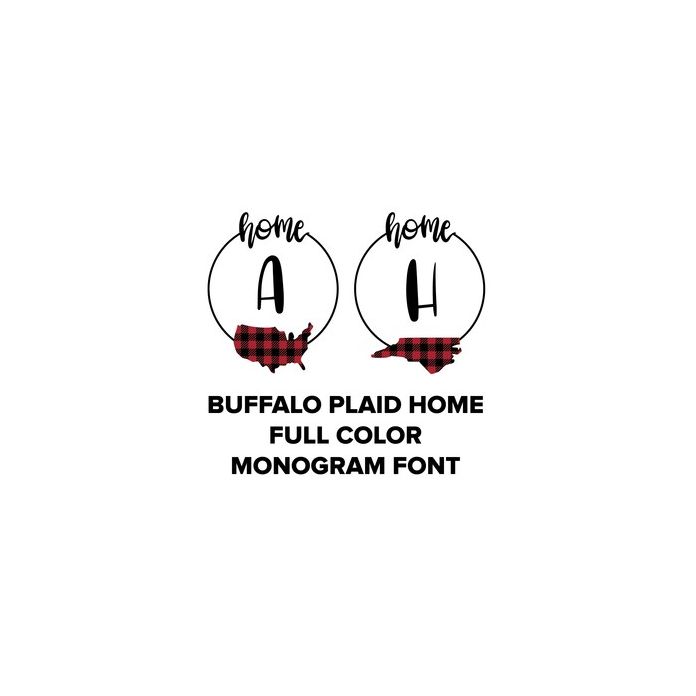
This font comes with all 50 states as well as the United States shape. Only 26 uppercase hand drawn letters are included, but you must type uppercase and lowercase to access each state. Mix and match to get the state and letter combo to fit your needs.